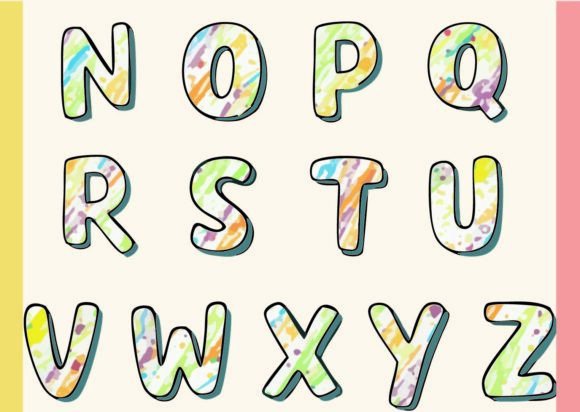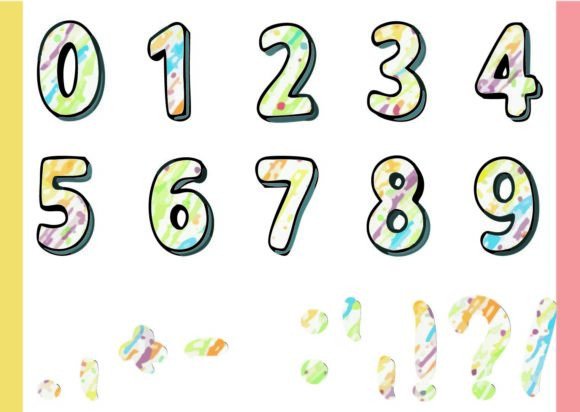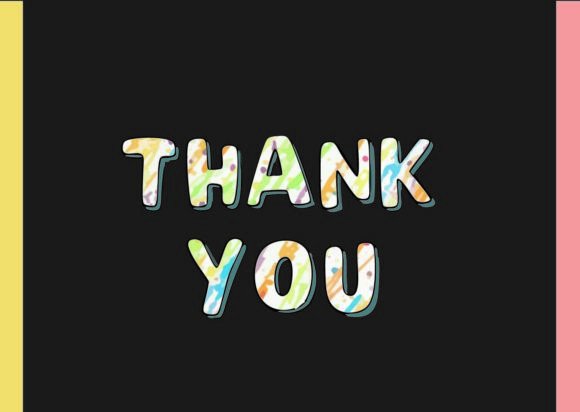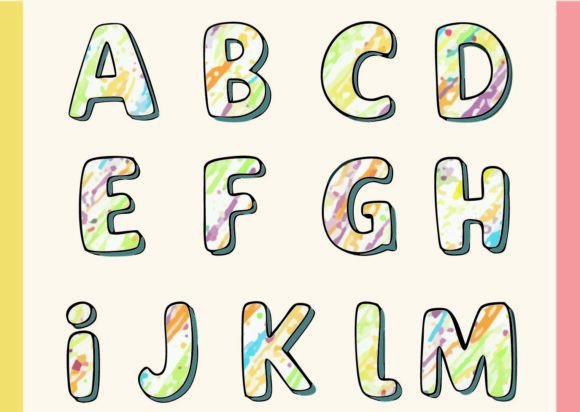
Introducing Harlow Font: A Colorful Heaven for Designers and Crafters
Are you tired of traditional fonts and looking for something that adds a pop of color to your designs? Look no further than Harlow Font, a revolutionary color font that is taking the design world by storm. In this article, we’ll dive into the world of Harlow Font, exploring its unique features, compatibility, and uses.
What is Harlow Font?
Harlow Font is a color font, also known as a chromatic font, that boasts a stunning array of colors. What sets it apart from traditional fonts is that every single glyph has a different set of colors, creating a mesmerizing visual effect. If you take a closer look at the glyphs, you’ll notice intricate sets of paths and connections in each one, making every glyph a miniature typographic painting.
Technical Details: Opentype-SVG and Compatibility
Harlow Font is an Opentype-SVG font, which means it’s a cutting-edge font format that allows for scalable vector graphics. This font is compatible with a range of popular design software, including:
Design Possibilities with Harlow Font
With Harlow Font, the design possibilities are endless. Imagine creating vibrant social media graphics, colorful branding materials, or eye-catching craft projects. The font’s unique color scheme and intricate designs make it perfect for:
- Planners and journals
- Crafting and scrapbooking
- Digital art and illustration
Why Choose Harlow Font?
So, what makes Harlow Font a must-have for designers and crafters? Here are just a few reasons:
- Unique and eye-catching designs: Harlow Font’s colorful and intricate designs are sure to grab attention and set your work apart.
- Versatility: With compatibility across multiple design software, you can use Harlow Font in a variety of projects.
- Scalability: As an Opentype-SVG font, Harlow Font can be scaled up or down without losing quality.
Tips for Using Harlow Font
To get the most out of Harlow Font, here are some tips:
- Experiment with color combinations: Play around with different color schemes to find the perfect match for your design.
- Use it sparingly: Harlow Font’s bold designs can be overwhelming if overused. Balance it with neutral fonts for a harmonious look.
- Take advantage of SVG capabilities: Use Harlow Font in projects that require intricate designs and scalability.
Harlow Font is a game-changer for designers and crafters looking to add a splash of color to their work. With its unique and intricate designs, compatibility across multiple software, and scalability, it’s an essential tool for anyone looking to elevate their designs. Whether you’re a seasoned designer or a crafting enthusiast, Harlow Font is sure to inspire and delight.